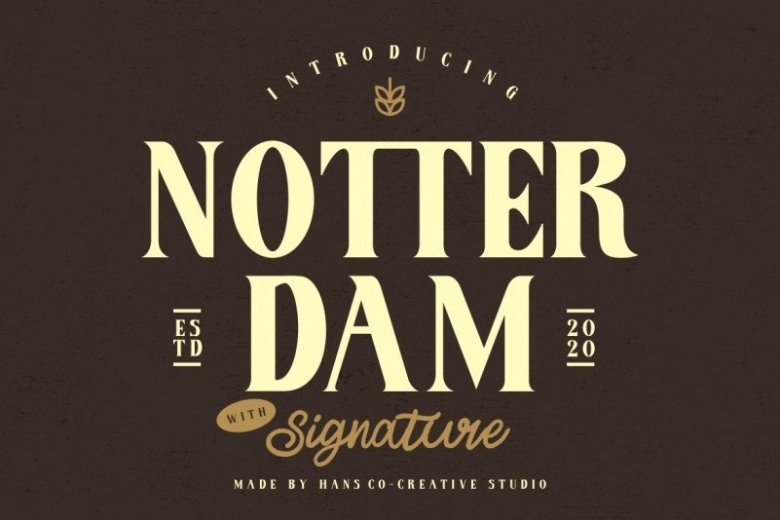
Notter Dam Font
This font has edgy textures and stylistic alternates. The serif font is perfect to be used as it is or jazz it up and add character to your lettering using sophisticated stylistic alternates. Paired with an inky signature font with a matching texture. The script font also comes with many ligatures for a smooth handwriting effect!